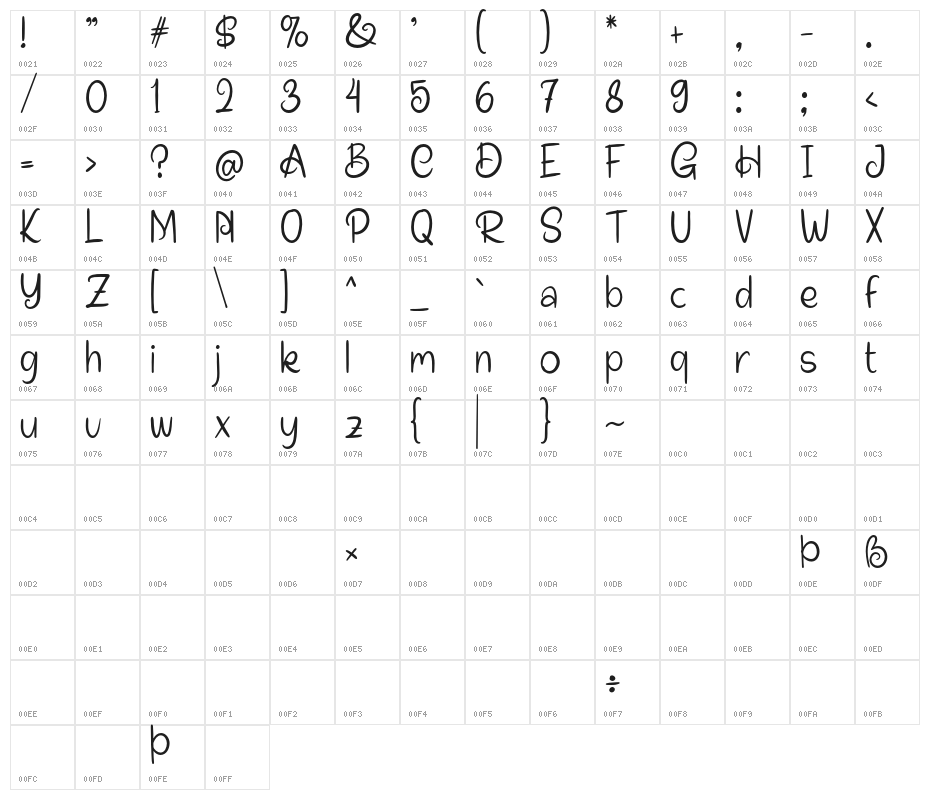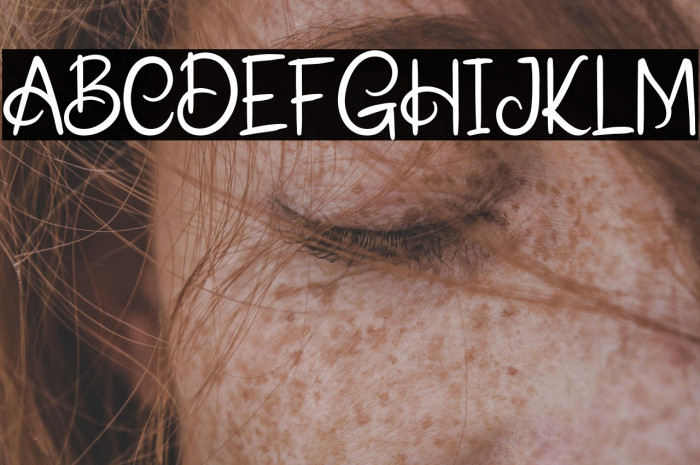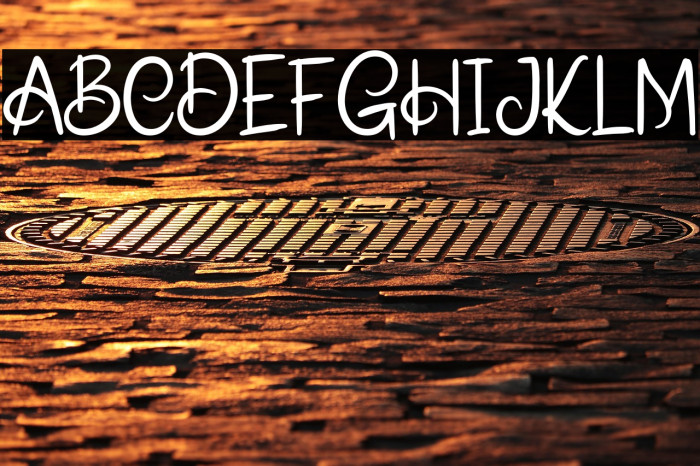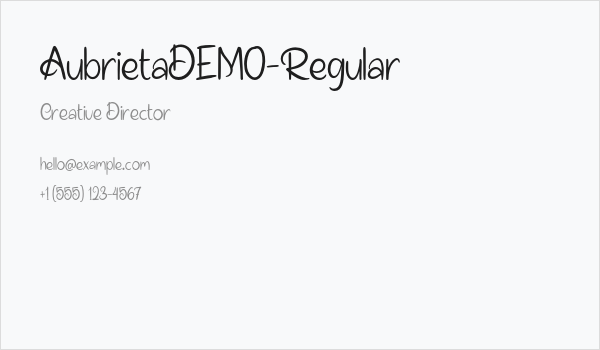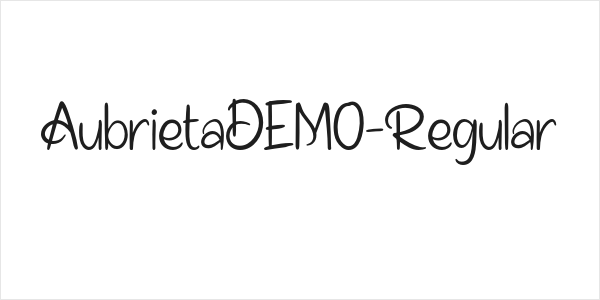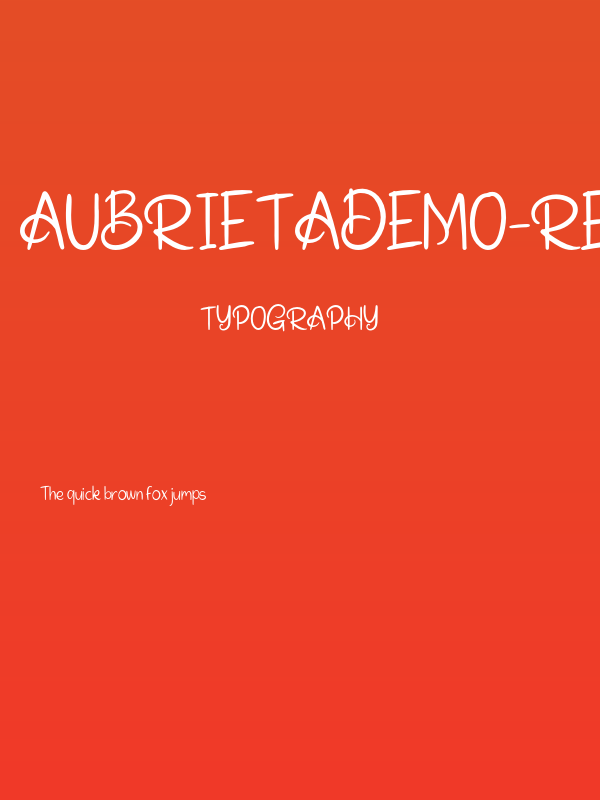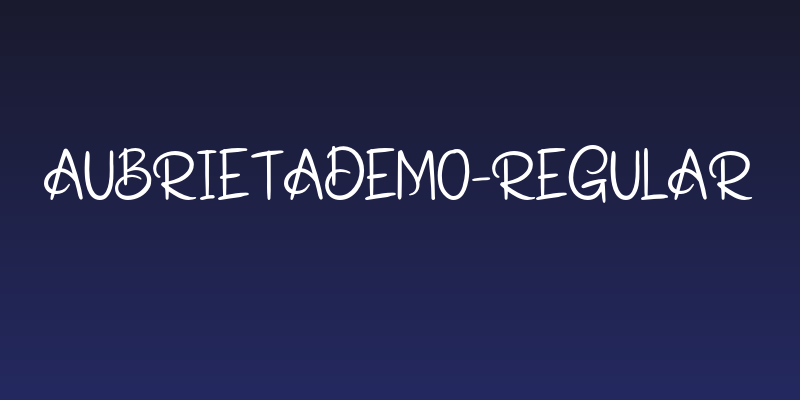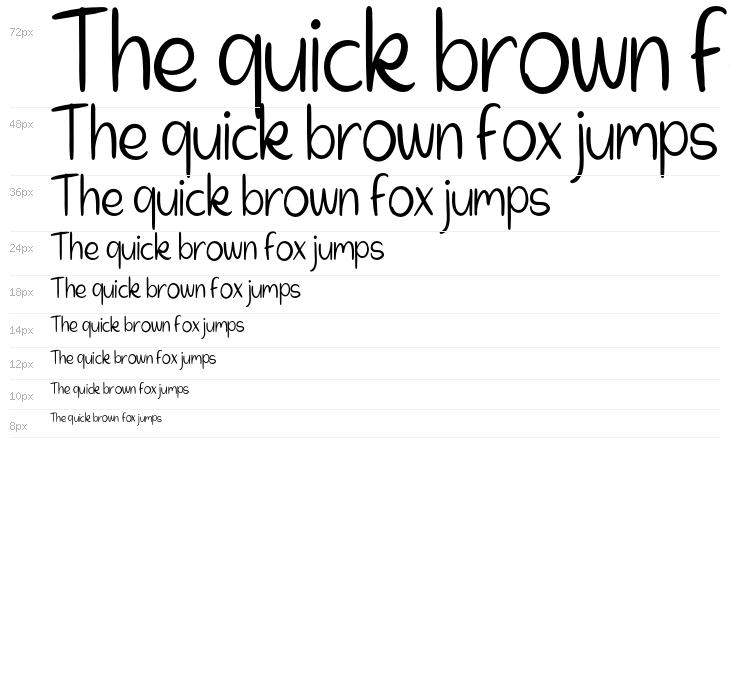
AubrietaDEMO-Regular Font
AubrietaDEMO-Regular Description
This playful and whimsical font features a handwritten style with a casual and friendly appearance. The characters are rounded and smooth, giving a sense of approachability and warmth. Uppercase letters are bold and slightly irregular, adding to the font's charm. Lowercase letters maintain a consistent flow, with some characters extending slightly below the baseline, enhancing its handwritten feel. The numerals are distinctive, with a playful twist that complements the overall style. Special characters are creatively designed, maintaining the font's cohesive look. This font is ideal for projects that require a personal touch or a fun, informal vibe.
| Use Case | Headlines, Logos, Informal text |
| Proposed Projects | Greeting cards, children's books, playful branding, casual invitations. |